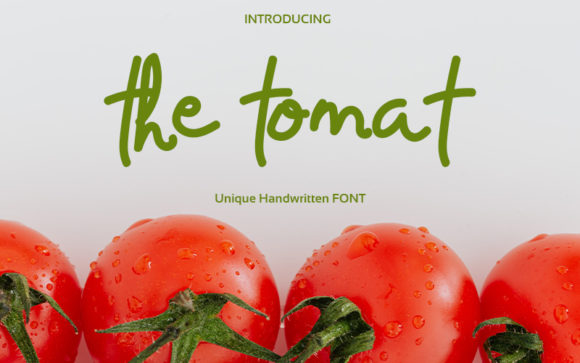
The Tomat Font
Indulge in the captivating allure of The Tomat Font, a meticulously crafted script that will transform your designs into masterpieces.
Immerse yourself in the world of boundless creativity, where The Tomat Font dances across your screen, effortlessly captivating hearts and igniting imaginations. Its natural and unique style empowers you to leave an unforgettable mark on every project, from elegant business cards to enchanting invitations.
Let your words blossom into visual artistry, as The Tomat Font weaves its magic, enchanting your audience with its graceful curves and enchanting flourishes. Embrace the essence of timeless beauty, where sophistication meets playfulness, creating a symphony of visual delight.
With The Tomat Font at your fingertips, the possibilities are endless. Its versatility knows no bounds, adapting seamlessly to a myriad of design endeavors, from branding and packaging to website designs and social media campaigns. Imagine the impact it will have, elevating your creations to new heights of visual appeal.
Unleash your creativity and let The Tomat Font be your muse. Its enchanting strokes will inspire you to craft designs that resonate with your audience, leaving a lasting impression.